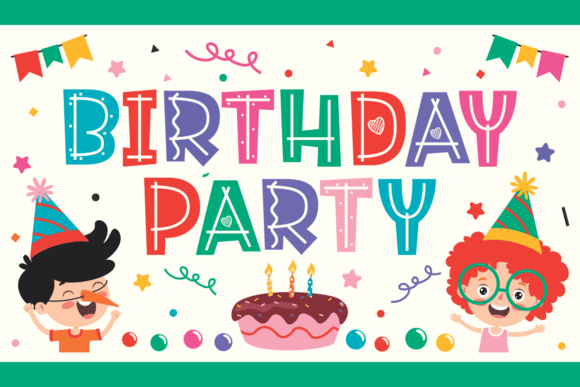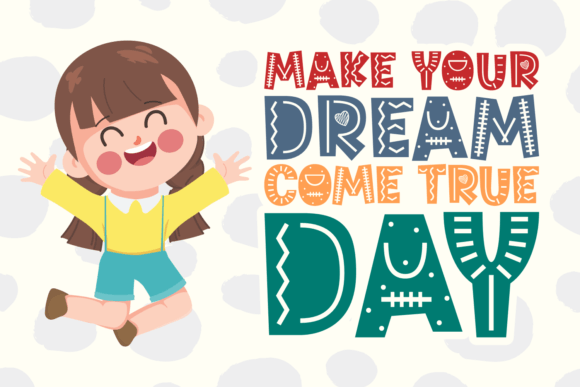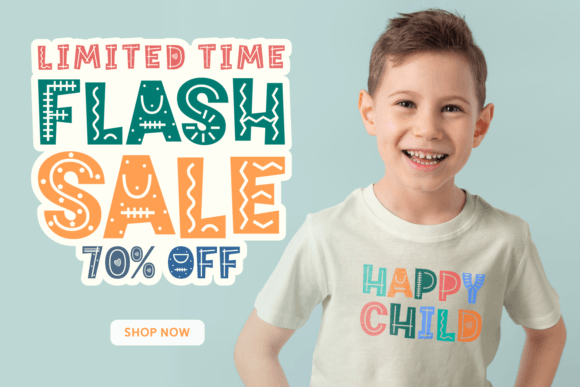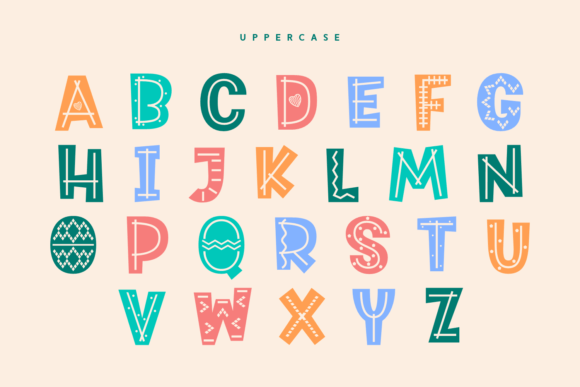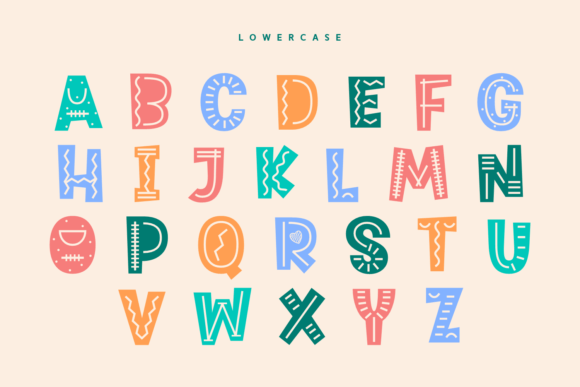
The Sweetest Font You’ll Ever Use: A Deep Dive into Candy Homes Font
I’ll never forget the time I was working on a birthday party invitation for my niece’s 5th birthday. I had the design all planned out, but I just couldn’t find the perfect font to match the playful and cheerful vibe of the party. That’s when I stumbled upon Candy Homes Font, and it was love at first sight! 🎉 In this article, I’ll share my experience with this adorable font, its features, and how to make the most of it in your designs.
An Honest Review of Candy Homes Font
Candy Homes Font is a cheerful and childish decorative font that’s perfect for adding a touch of fun and joy to your typography. Here are some things I love about it:
• ✨ Playful and whimsical design: The font has a bubbly and carefree feel to it, making it perfect for kids’ projects, party invitations, and more.
• ✅ Easy to read: Despite its playful design, the font is surprisingly easy to read, even in smaller sizes.
• 💕 Highly versatile: Candy Homes Font can be used for a wide range of projects, from t-shirts and cards to banners and posters.
Of course, no font is perfect, and Candy Homes Font has a few small quirks:
• 🤔 Limited use in formal contexts: This font is clearly designed for playful and informal projects, so it may not be the best choice for formal or professional designs.
• ⚠️ Some letters may not be suitable for small sizes: A few letters, like the lowercase “q” and “p”, may appear a bit distorted when used in very small sizes.
The Backstory of Candy Homes Font
Candy Homes Font was designed with one goal in mind: to bring a smile to your face. Its creator, a passionate typographer, wanted to craft a font that would evoke the joy and playfulness of childhood. With its bubbly letters and whimsical feel, Candy Homes Font is sure to delight both designers and their audiences.
What is Candy Homes Font best used for? Candy Homes Font is perfect for kids’ projects, party invitations, cards, banners, and any other design that needs a playful and cheerful touch.
Is Candy Homes Font easy to read? Yes, despite its playful design, Candy Homes Font is surprisingly easy to read, even in smaller sizes.